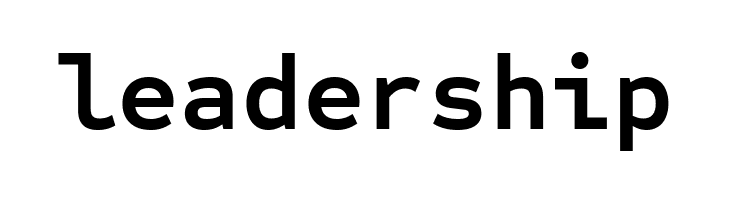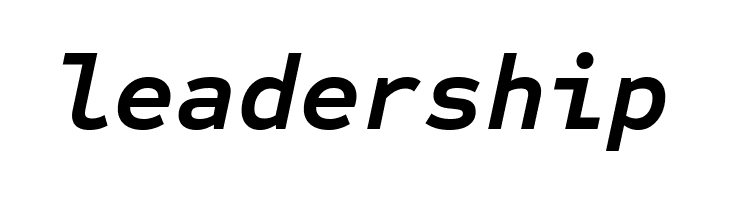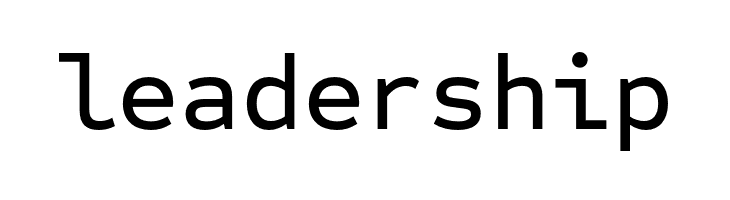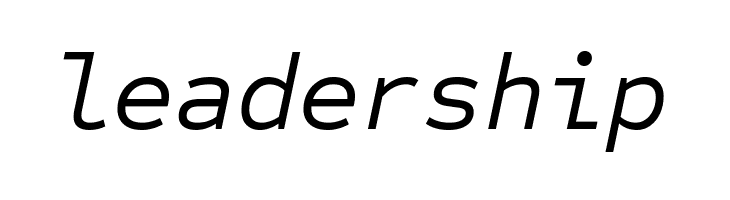
A bold, monospaced font with a modern and functional design.
A bold, italic monospaced font with a modern, technical style.
A monospaced, italic font with a modern and clean design.
A modern, monospaced typeface with clean lines and uniform spacing.
A monospaced, medium-weight italic font ideal for coding and technical documents.
A modern, monospaced typeface with uniform character width and high legibility.
A modern, monospaced italic typeface with low contrast and even spacing.
A clean, modern monospaced font ideal for coding.
A modern, monospaced font perfect for coding and technical documentation.
A bold, monospaced font ideal for coding with clear readability.
A bold, monospaced font ideal for coding and technical documentation.
A bold, monospaced font ideal for coding and technical documents.
A bold, modern monospaced font with low contrast and even spacing, ideal for coding.
A modern, monospaced font with thin strokes and uniform spacing, ideal for coding.
A clean, modern monospaced font with thin strokes and balanced spacing.
A modern, extra-light italic monospaced font with a sleek and uniform appearance.
A clean, modern monospaced font with consistent stroke thickness and high readability.
A modern, monospaced font with clean lines and consistent spacing, perfect for coding.
A sleek, monospaced, light italic font ideal for coding and technical applications.
A modern, monospaced font perfect for coding and technical documentation.